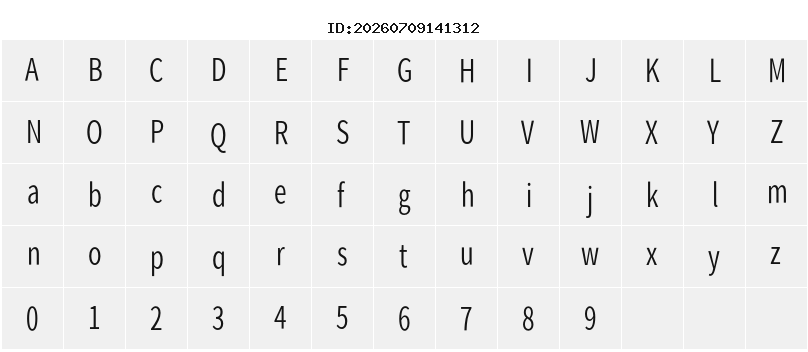
• Font Name: ChillDuanSans Condensed
• Designer: ChillDuanSans {Warren2060}; Source Han Sans {Ryoko NISHIZUKA 西塚涼子 (kana, bopomofo & ideographs); Paul D. Hunt (Latin, Greek & Cyrillic); Sandoll Communications 산돌커뮤니케이션, Soo-young JANG 장수영 & Joo-yeon KANG 강주연 (hangul elements, letters & syllables)}
About ChillDuanSans Condensed.otf
ChillDuanSans Condensed.otf is a modern, elegant sans-serif font designed for ultimate readability and visual harmony. Perfect for branding, headlines, web design, and print materials.